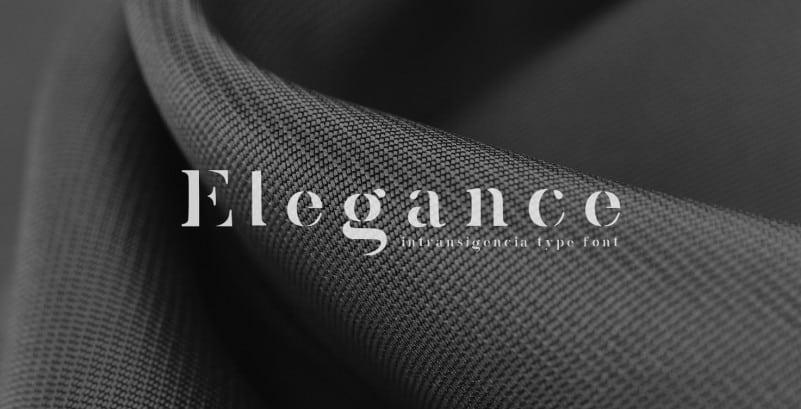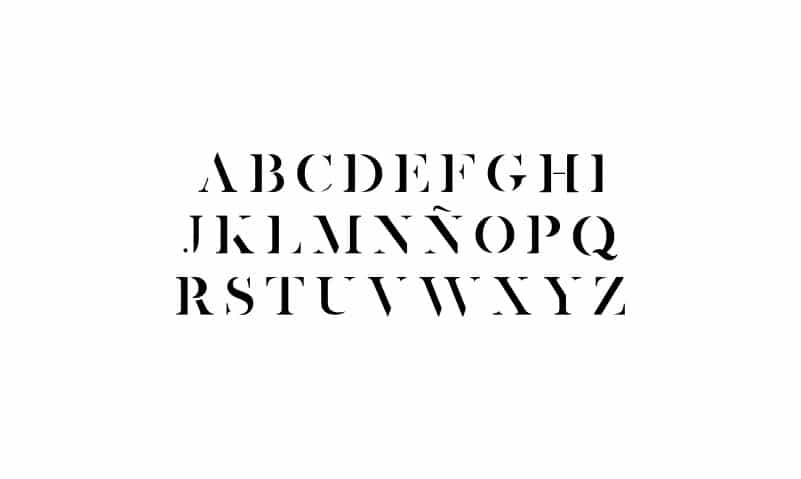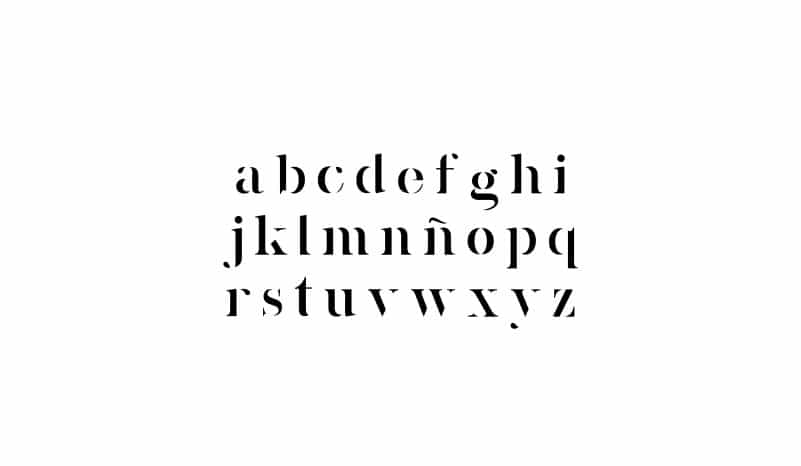
Intransigencia Serif Font
Intransigencia Serif Font is a serif font with elegant characters. It’s perfect for your elegant-themed work, suitable also for elegant vintage. It’s designed and shared by Mitri Graphic Design.